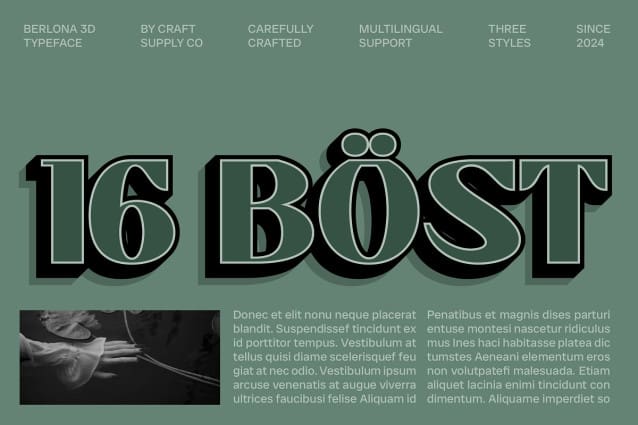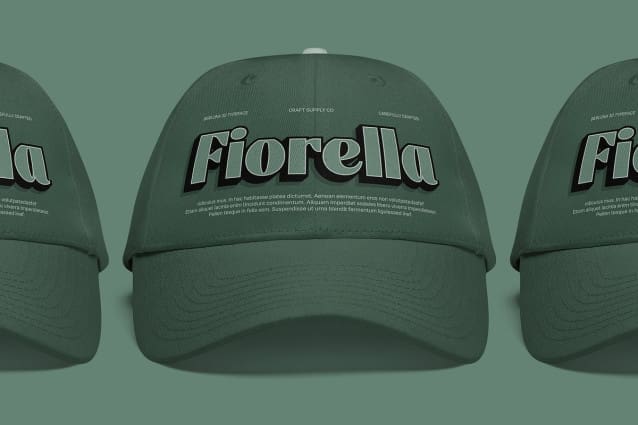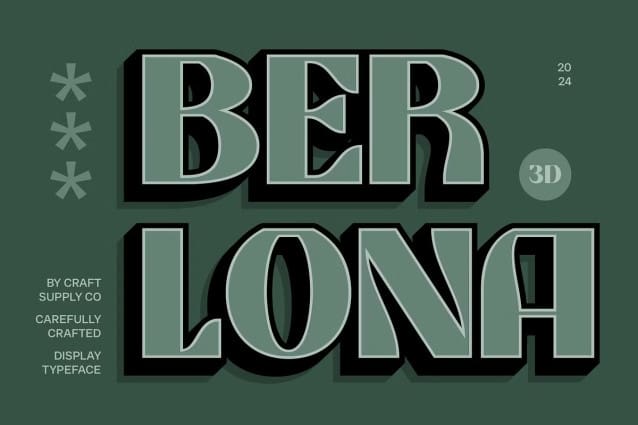
Berlona 3D Font
Berlona 3D Font is a classic bold sans serif font that captures the distinctive 90s retro vibe with its strong and bold characters. Its thick design ensures a striking and energetic impression, making it perfect for projects that demand attention and flair. With each letter exuding confidence, Berlona 3D invites viewers to engage with its bold personality, making it an ideal choice for dynamic branding efforts and expressive marketing campaigns.
3D Effect for Enhanced Depth The addition of a dynamic 3D effect brings depth and dimension to Berlona 3D, enhancing its visual appeal. This three-dimensional aspect not only adds a layer of intrigue but also helps the font stand out in a crowded design landscape. The interplay of light and shadow in the 3D rendering creates a captivating visual experience, making the font feel alive and interactive. This depth is particularly effective in designs where impact is key, such as event promotions and product launches.
Perfect for Nostalgic Aesthetics Ideal for posters, graphic design, and branding, Berlona 3D celebrates nostalgic aesthetics while delivering modern functionality. Its vibrant and bold presence makes it a go-to choice for designs that aim to evoke memories of the past while still appealing to contemporary sensibilities.